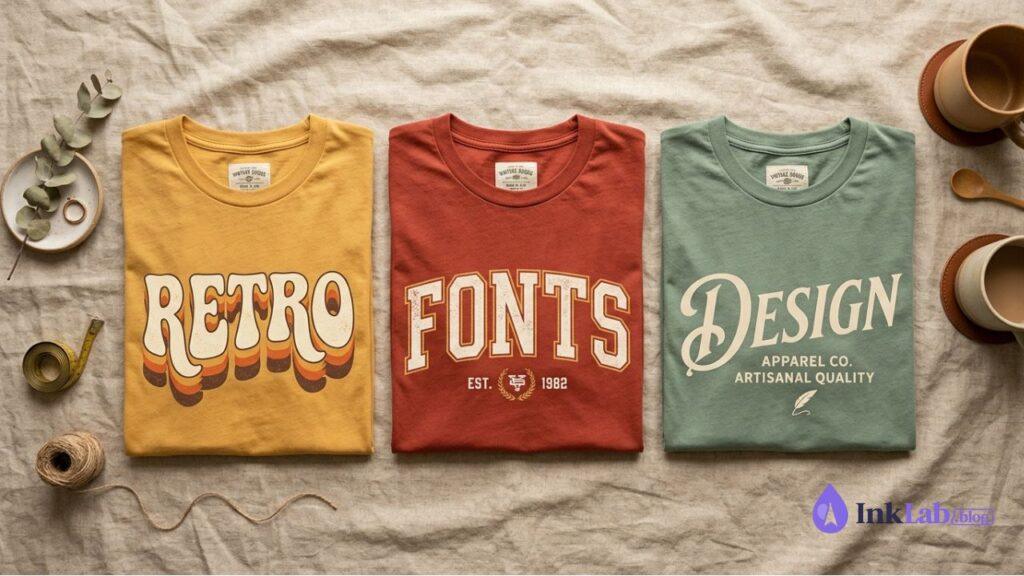
Retro and vintage typography is dominating the t-shirt market on Etsy, Amazon Merch, and Printify. From 70s groovy bubble letters to wavy retro scripts and classic vintage serifs, choosing the right font is key to creating best-selling apparel. Here are the 15 best retro and vintage fonts for t-shirt design, all featuring thick, bold strokes perfect for Cricut cutting, screen printing, and sublimation.
Why Retro & Vintage Fonts Are Best-Sellers for T-Shirt Design
Vintage typography creates instant emotion and nostalgic appeal. However, for a font to work specifically on t-shirts, it must meet visual and technical requirements:
- Bold stroke weight — stands out against fabric textures without getting lost on heather grey or black shirts
- Built-in swashes & alternates — allows you to create custom-looking logos without advanced lettering skills
- Clean vector curves — essential for easy weeding in Cricut vinyl and sharp DTG / sublimation prints
- High contrast & personality — instantly grabs attention on Etsy thumbnails and Pinterest pins
✌️ Best Retro Fonts for T-Shirt Design: 70s Groovy Style
Bright Retro Font
A iconic 1970s-inspired groovy font packed with playful swashes and ligatures. Its thick, curvy letterforms make it an instant hit for retro quote tees, summer vibes merch, and trendy graphic t-shirts.
Groovy Summer Font
Super clean vector curves with a laid-back 70s feel. Works exceptionally well for beach-themed apparel, vacation graphic tees, and boho-style quote shirts for women.
Stay Groovy Font
Chunky, fun, and ultra-bold. Stay Groovy holds color amazingly well for sublimation and screen printing on t-shirts and hoodies without losing legibility from afar.
Funkymore Font
High-energy 70s script with massive swashes and vintage underlines. Ideal for creating standalone wordmark designs for t-shirts without needing extra graphics.
Vintage Dreams Font
A soft, nostalgic retro serif font. It brings a retro-chic look to t-shirts, perfect for botanical prints, coffee quotes, and minimalist vintage merchandise.
Vintage Varsity Font
Classic American athletic block font. Perfect for sports apparel, university-style custom tees, mom-life shirts, and high-school vintage designs.
Baseball Classic Font
Features thick swashes and tails inspired by classic baseball jerseys. Add a tail under your text to instantly turn any word into an authentic vintage sports logo for t-shirts.
Retro Signature Font
Bold cursive script that captures 1980s beach apparel and surfwear aesthetics. Thick lines keep it easy to weed on Cricut while offering high visual impact.
Tattoo Letter Font
Traditional tattoo-inspired display font. Best for edgy graphic tees, motorcycle culture apparel, rock band merch, and vintage streetwear designs.
Royal Vintage Font
A refined Victorian-era font designed for badge-style t-shirt layouts, whiskey label designs, and heritage brand apparel.
Western Retro Font
Rustic slab serif font with cowboy flair. Western-themed t-shirts (country music, rodeo, bull skull graphics) are top-sellers on Etsy right now, and this font fits perfectly.
Retro Pixel Font
Nostalgic 8-bit arcade style font for gaming t-shirts, tech enthusiast apparel, and retro synthwave merch.
Old Newspaper Font
Authentic old-school newspaper display font. Great for vintage headline tees, streetwear statement prints, and retro quote designs.
Groovy Disco Font
Classic multi-line retro typography effect. Ideal for colorful rainbow sublimation prints on t-shirts where retro layering is required.
Vintage Botanical Font
Combines classic serif letterforms with delicate floral elements. Ideal for wild-flower t-shirts, cottagecore apparel, and nature-themed prints.
- Match Font with Apparel Niche: Use 70s groovy scripts for boho/mom quotes, varsity block fonts for athletic gear, and slab serifs for Western tees.
- Combine Script with Sans-Serif: Pair a wavy retro script (like Bright Retro) with a clean, bold sans-serif subtext for balanced t-shirt layouts.
How do I add swooshes and tails to retro baseball script fonts?
Many retro script fonts include alternate characters or swashes accessed via the Glyphs panel in programs like Photoshop, Illustrator, Canva, or Cricut Design Space.